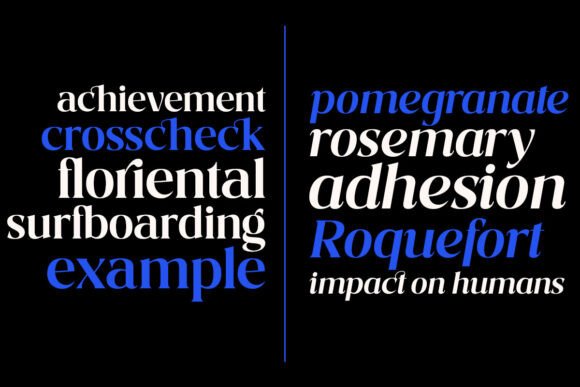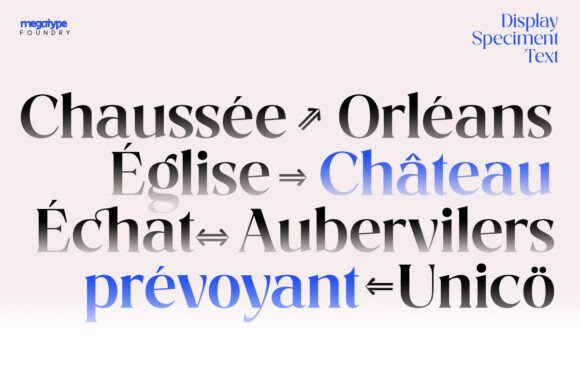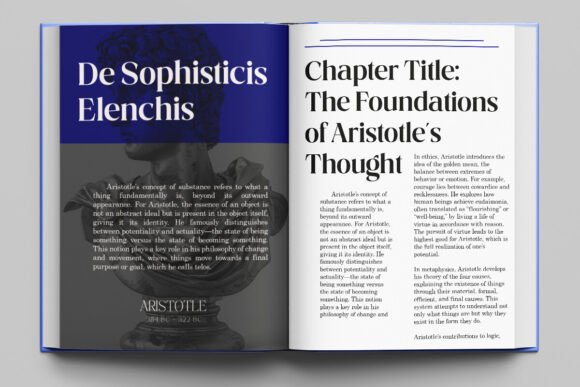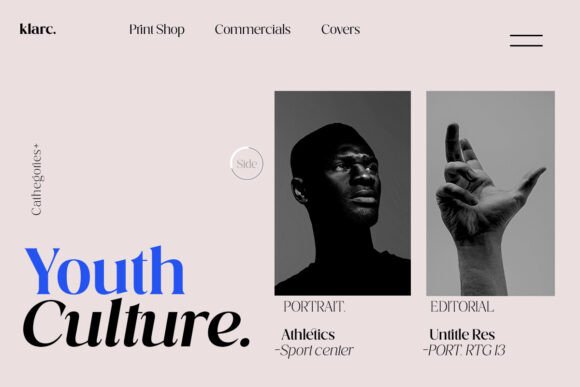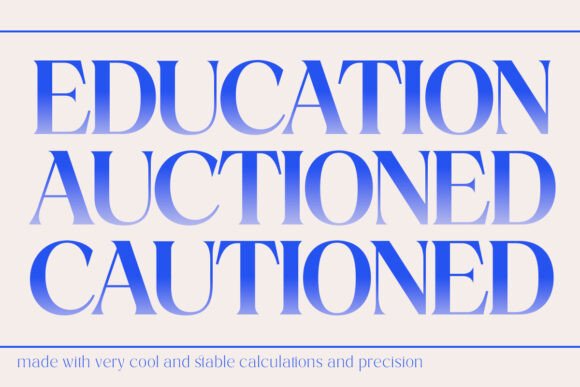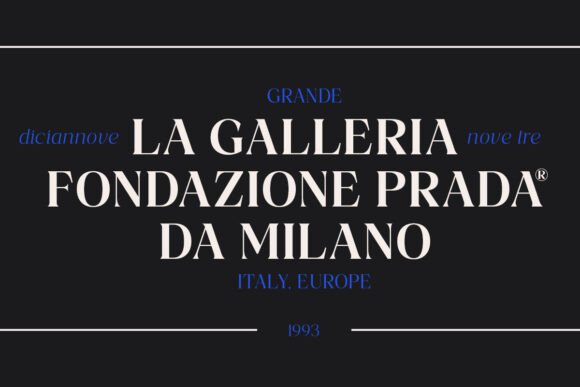
Introducing Costaline Extra Bold: Elevate Your Designs with a Timeless Serif Typeface
In the realm of typography, a font can make or break a design. For designers and crafters seeking a typeface that exudes both classic elegance and modern flair, Costaline Extra Bold emerges as an exceptional choice. This harmonious and stylish contemporary serif font is engineered to breathe life into a wide array of design projects, from editorial designs and headlines to branding, logo design, packaging, magazine titles, advertisements, and web design.
The Essence of Costaline Extra Bold
Costaline Extra Bold is not just another serif typeface; it’s a versatile tool designed to unlock endless creative possibilities. Its classic feel, combined with a contemporary twist, ensures that your designs stand out while maintaining an air of sophistication and timelessness. This font is meticulously crafted to reveal many visual nuances and hidden secrets, allowing designers to explore and refine their creations with precision.
Variety and Flexibility
One of the standout features of Costaline Extra Bold is its comprehensive range of styles, including vertical and italic versions. This variety empowers designers to experiment with different expressions and tones, making it easier to find the perfect fit for any project. Whether you’re crafting a bold statement or a subtle hint of elegance, Costaline Extra Bold offers the flexibility to achieve your design goals with finesse.
Applications of Costaline Extra Bold
The versatility of Costaline Extra Bold makes it an invaluable asset for a multitude of design applications:
- Editorial Design: Bring your publications to life with captivating headlines and body text that exude professionalism and style.
- Headlines: Grab attention with bold, assertive typography that commands respect.
- Branding Projects: Establish a strong brand identity with a typeface that communicates your message effectively.
- Logo Design: Create memorable logos that stand out in any medium.
- Packaging: Elevate product packaging with typography that adds value and aesthetic appeal.
- Magazine Titles: Craft eye-catching titles that reflect the tone and theme of your magazine.
- Advertisements: Make your ads more compelling with typography that engages and persuades.
- Web Design: Enhance your website’s visual appeal with a typeface that is both readable and stylish.
Why Choose Costaline Extra Bold?
Choosing Costaline Extra Bold for your design projects comes with numerous benefits:
- Timeless Appeal: Its classic feel ensures your designs remain relevant over time.
- Versatility: Suitable for a wide range of design applications.
- Legibility: Carefully designed to ensure readability in both short and long texts.
- Aesthetic Nuance: Offers a rich visual experience with subtle nuances and character.
| Font Name | Costaline Extra Bold Font |
| Author | Megatype |
Costaline Extra Bold stands out as a superior choice for designers and crafters looking to infuse their projects with a blend of classic sophistication and contemporary style. Its extensive range of applications, combined with its aesthetic appeal and versatility, makes it an indispensable tool in any designer’s arsenal. Whether you’re working on a high-profile branding project or a personal craft, Costaline Extra Bold is poised to elevate your designs to new heights.
Embark on a creative journey with Costaline Extra Bold and discover the difference a meticulously crafted typeface can make in your design endeavors.